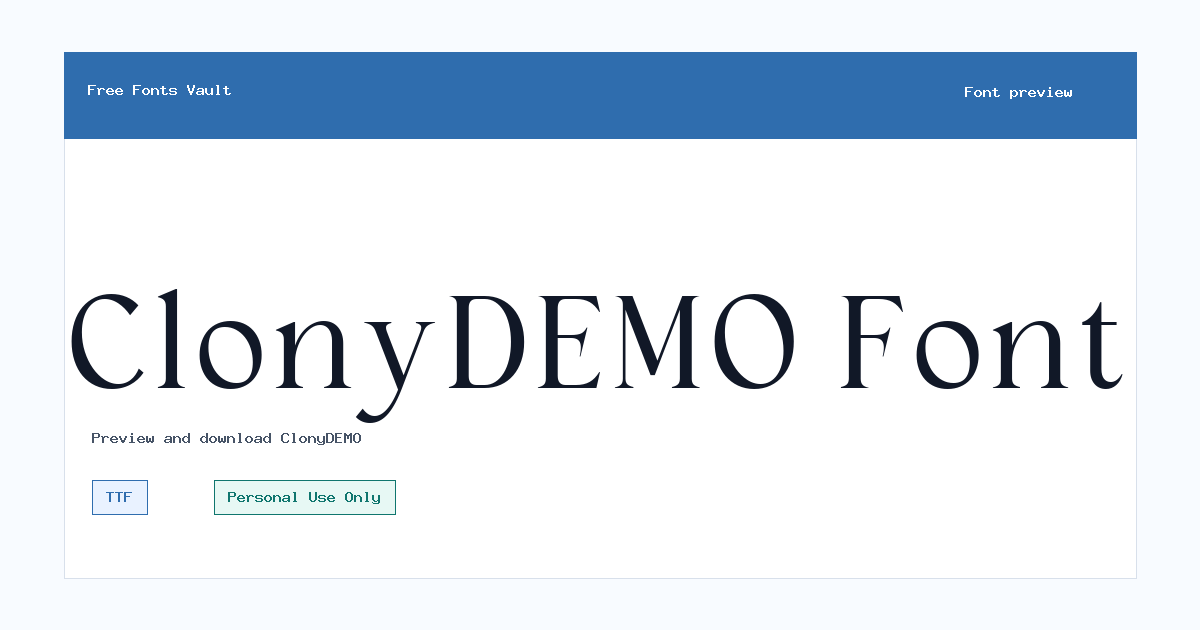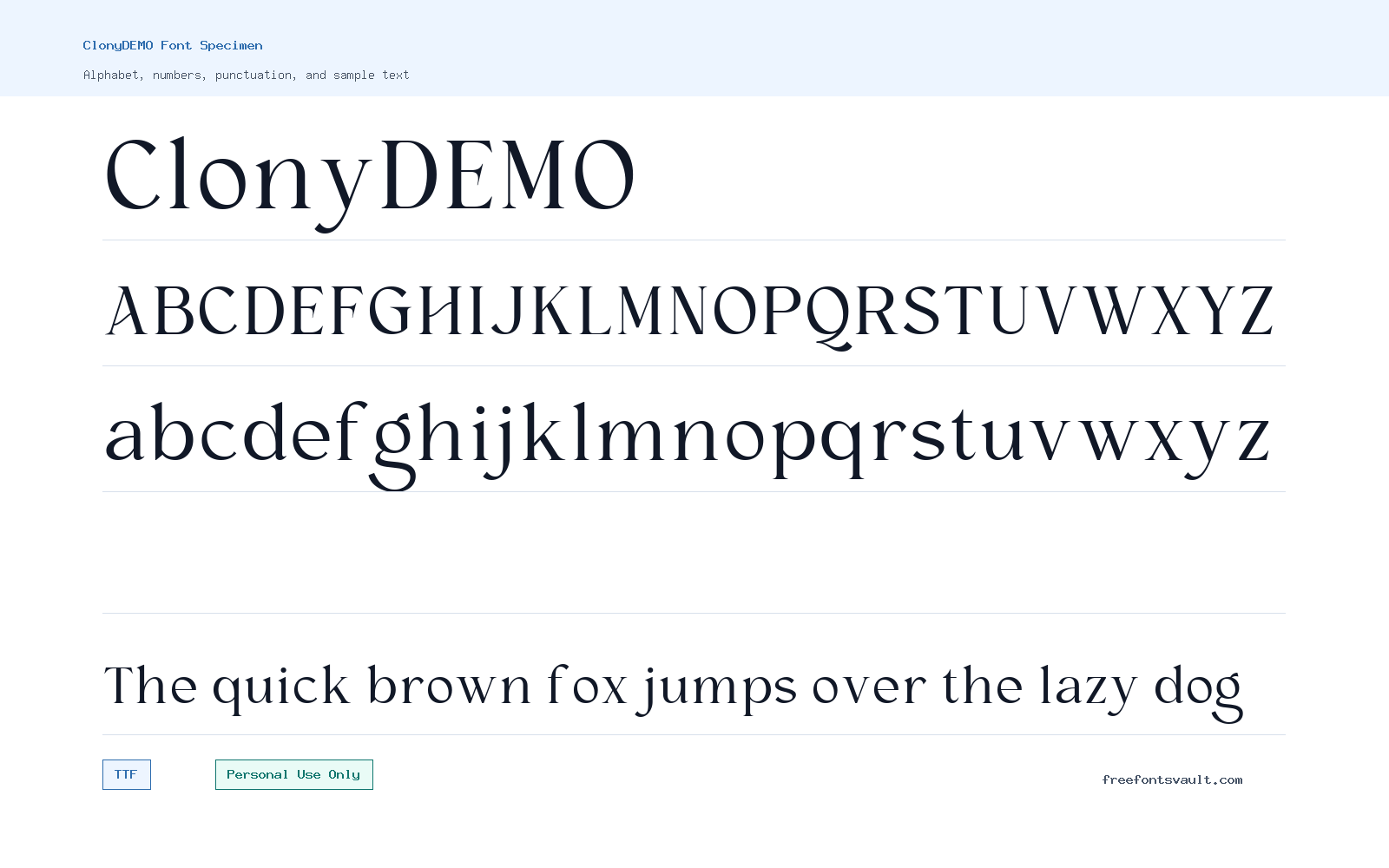
ClonyDEMO
- Designer Ragamkata Studio
ClonyDEMO font.
ClonyDEMO is a personal-use demo font from Ragamkata Studio, offered as a regular TTF file for visitors who want to test its look in headlines, branding ideas, and short display layouts before deciding whether it fits a project.
About ClonyDEMO Font
ClonyDEMO is best approached as a display font rather than a long-reading text face. The name and license reference Clony Serif Font, so visitors can reasonably expect a serif-led style, but the safest way to judge its character is to use the live preview with real words from the project. Try it with brand names, short headlines, packaging text, and social graphics. Pay attention to the shape of the capitals, the spacing between common letter pairs, and how the font feels at both large and medium sizes. Demo fonts often show their strongest personality in short text, where details can stand out without making the layout feel crowded.
For logo work, ClonyDEMO can be useful during the early concept stage. Type the exact name you plan to use, then test uppercase, lowercase, and title case if the font supports them. Some display serifs look elegant in all caps, while others feel more natural with mixed case. If the preview makes certain letters feel too tight or uneven, plan to adjust tracking or refine the final lettering manually in design software. For posters and web mockups, use ClonyDEMO for the main title or a short callout, then pair it with a calm sans serif or a readable text serif for body copy. This keeps the design readable while letting the display font carry the visual identity.
Because this is a demo font, it is especially important to test it with realistic text before using it in finished artwork. Check numbers, punctuation, accented characters, and any symbols your project needs. A font can look strong in a sample word but behave differently in a full title, menu item, or button label. If you are building a web mockup, preview the font at common screen sizes and compare it against the surrounding interface type. For print, test the font in the actual poster or packaging size, not just in a small preview window. Large display type can reveal spacing issues, while smaller use can hide the details that make the font interesting.
- Display-oriented use is recommended for titles, logo concepts, poster headings, and short decorative text.
- Logo concept sketches and early brand identity mockups
- Poster titles, event graphics, and headline treatments
- Social media images, quote cards, and short promotional layouts
- Packaging mockups, label concepts, and editorial display headings
- Web design mockups where the font is used sparingly for hero text or section titles
Who designed ClonyDEMO?
ClonyDEMO is credited to Ragamkata Studio.
What should I pair with ClonyDEMO?
For balanced layouts, pair it with a simple sans serif or a quiet text serif. Use ClonyDEMO for the headline or brand word, then keep body text in a more readable companion font.
Is ClonyDEMO good for long paragraphs?
It is better to use it for short display text. For paragraphs, captions, and interface copy, choose a font designed for comfortable reading at smaller sizes.